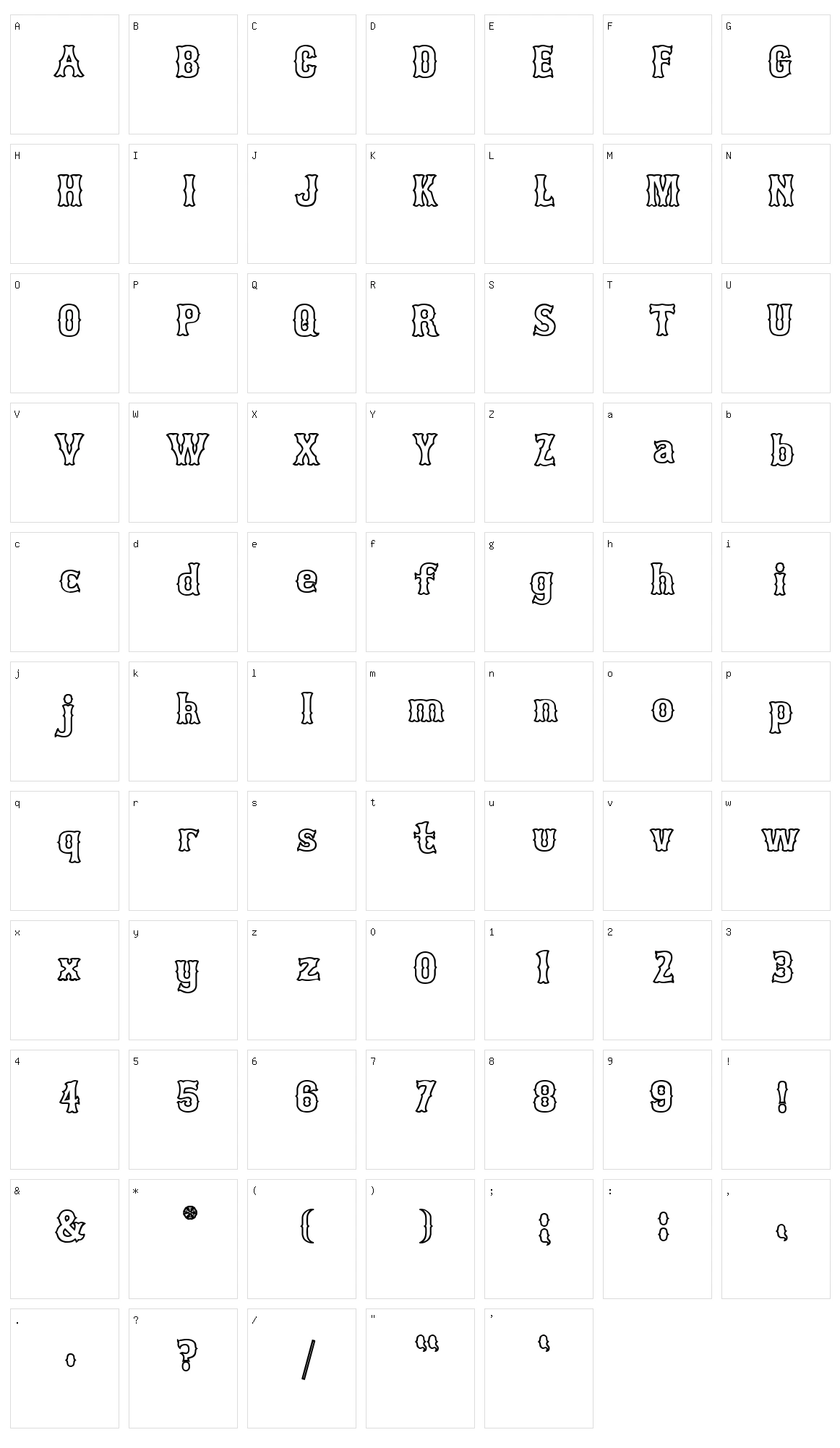
<<Someone did a homemade trace->font version of it a while back and
posted it here but I don't recall the name of it or even if it was any
good. I didn't d/l to check it out but I for some reason recall the
thread about it.>>
I was one of those people looking for a Sox font and was alerted to the
Ortiz artwork by someone in this group. I made some fonts from that artwork
but I have never posted it. I called the font "Bosox." There are 4
variations which I named Bosox, Bosox SemiBold, Bosox Outline, and Bosox
Outline Heavy. There's also one called Bosox Full which I think is
identical to Bosox SemiBold but I'll upload it as well, just in case it
might be useful to anyone. The "bold" versions are not exactly just bolder
versions of the regular fonts but it was the only naming convention I could
think of.
This was one of my first attempts to make a TrueType font (Windows version,
BTW) so the kerning is not perfect but I think it is passable.